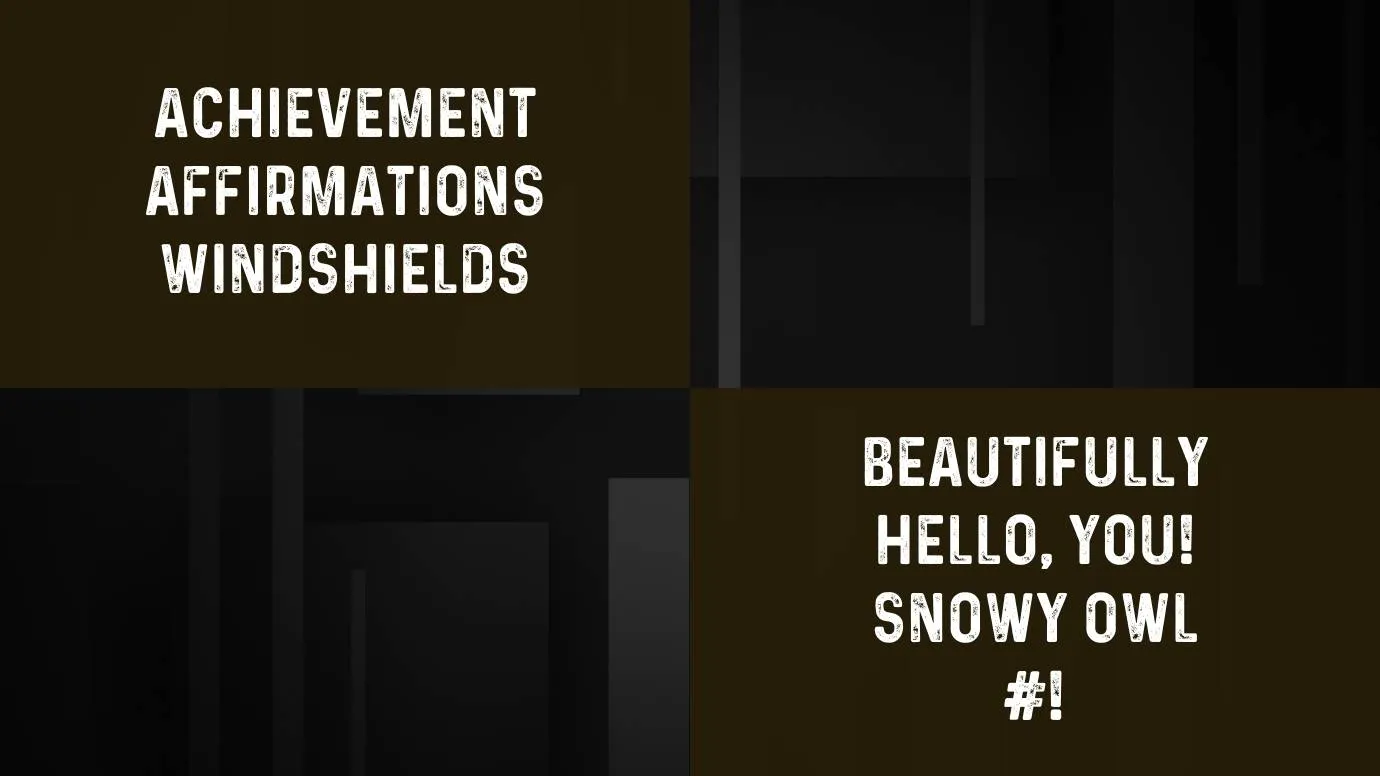
Prequel Font is a display typeface that was designed by Shaped Fonts in 2007. The Font was inspired by an old advertisement typeface that has eroded texture. The font is intended to be used for both display and body text.
The letters are based on bold visuals but have been adapted to be more readable. It is much similar to the distress font and you can make many stunning arts and illusions with the help of this font.
You can also use this font in body texts for a clean and simple look. The glyph of this font family gives it a modern look that is perfect for any project that needs a touch of sophistication. To create a unique and eye-catching design, you should use this font in combination with lemon milk font.
This typeface is designed by a very well-known font maker named Shaped Fonts. This designer is inspired by bold displays.
| Name | Prequel Font |
| Style | Display |
| Designer | Shaped Fonts |
Is Prequel Font easy to read?
Yes, This typeface has condensed stylish characters and good shape, it is very easy to read for users and readers also.
Is Prequel a Fancy Font?
The font has many features and functions that sound good with any type of design project. The typeface belongs to a display font family.